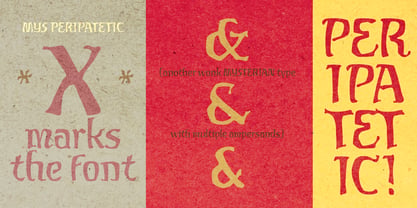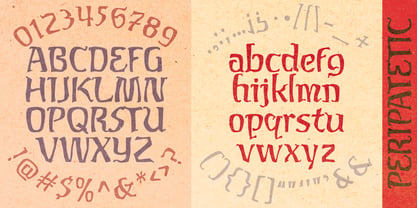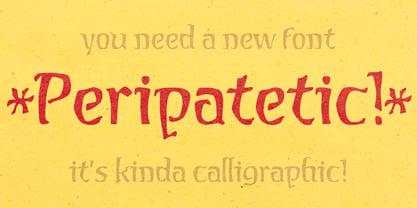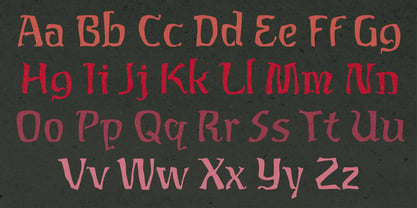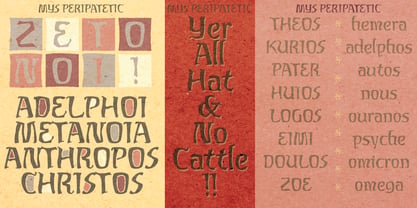
MYS Peripatetic
by MYSTERIAN
The MYS Peripatetic Font Family was designed by Caleb East and published by MYSTERIAN. MYS Peripatetic contains 1 styles. More about this family
MYS Peripatetic is a deliberately wonky, rhythm-driven typeface inspired by the restless energy of German calligraphic traditions. Instead of adhering to rigid formalism, it embraces movement, tilt, and irregularity—capturing the essence of a hand that never quite settles. Its letterforms exhibit a subtle tension between discipline and deviation, with strokes bending unexpectedly, counters shifting slightly off-axis, and proportions leaning into expressive imbalance. The result is a typeface that feels alive—wandering, exploratory, and distinctly human. The name Peripatetic reflects both motion and thought in movement, making it a dynamic choice that invites interpretation. Whether utilized for expressive headlines, artistic branding, experimental layouts, or editorial accents, MYS Peripatetic rewards designers who are willing to let typography convey personality. It draws from the spirit—not the strict forms—of German blackletter and calligraphic traditions, filtered through a contemporary, almost naïve sensibility. This typeface feels historical without being revivalist, expressive without being ornamental. MYS Peripatetic is particularly well-suited for expressive branding and identity, posters and album artwork, experimental editorial design, apparel graphics, artistic packaging, and niche or heritage-inspired projects. It includes an uppercase and lowercase alphabet, numbers, basic punctuation, alternative glyphs, and three stylistic ampersand options, making it a versatile choice for creative applications.
Designers: Caleb East
Foundry: MYSTERIAN